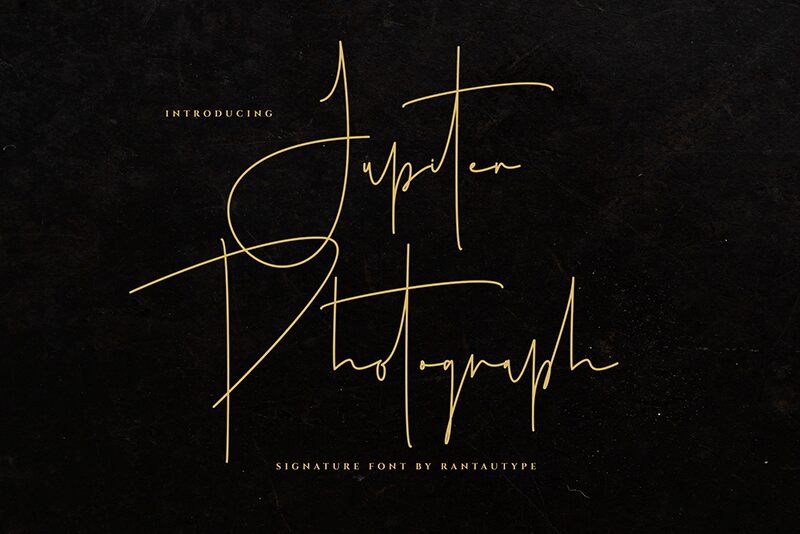
Jupiter Photograph
Jupiter Photograph font is a light handwritten typeface from RantautypeStudio made up of a stylish combination of casual elegance and freeform fluidity for effortless signature-style designs. It features an approachable appearance that will boost the legibility, beauty, and versatility of any design. Use only capital letters by default or use the alternates by enabling this free font’s opentype features.
Bring a fresh personal touch to your business cards, logos, invitations, apparel designs, social media posts, quotes/poems posters or wall art with Jupiter Photograph. Also suitable for packaging design like coffee bags and cosmetics,labeling and even way slightly more complex projects like magazine layouts.